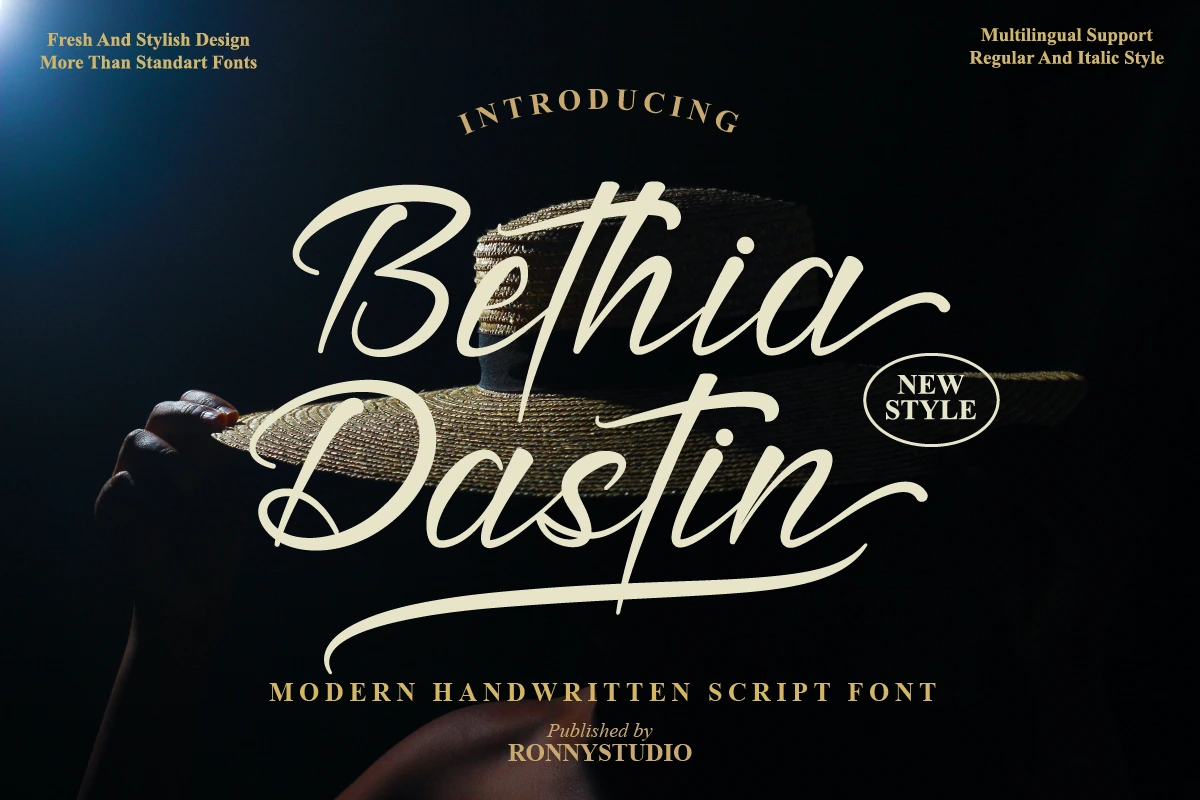
Bethia Dastin is a modern script font with an elegant handwritten signature style. Perfect for logos, wedding invitations, social media posts, branding, and stylish quotes.
It brings a classy, feminine, and luxurious feel to any design, especially for fashion, lifestyle, and coffee shop branding.